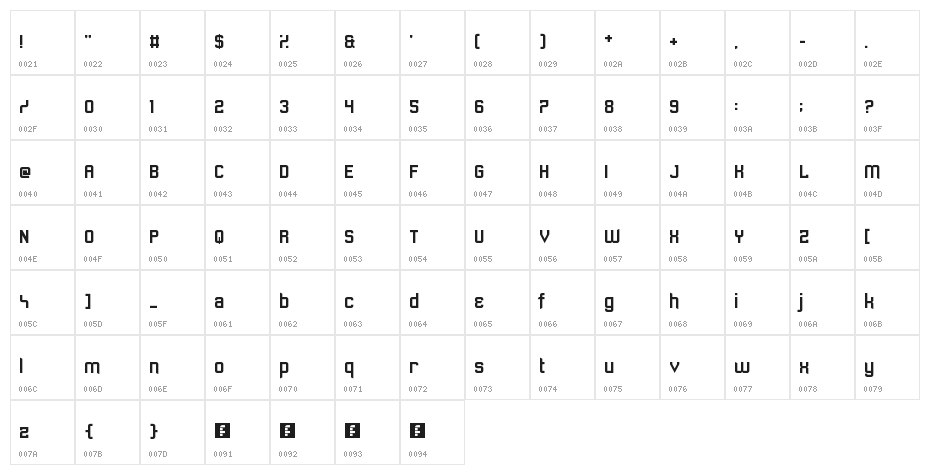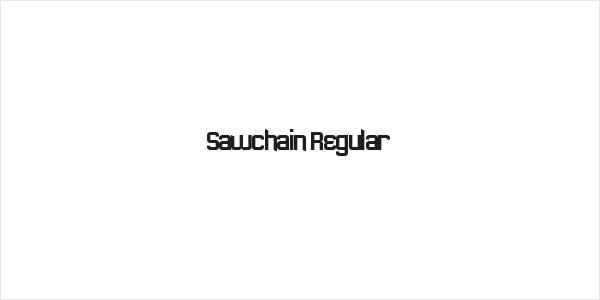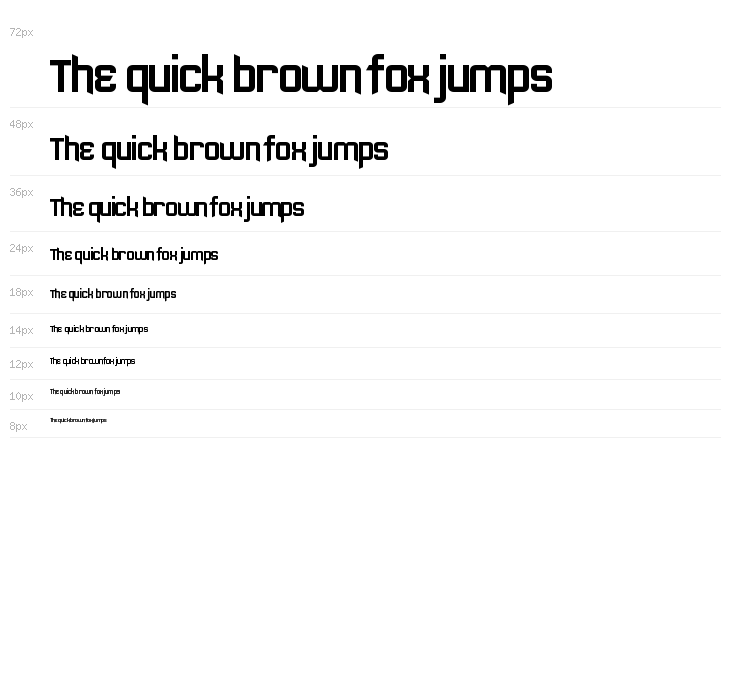
Sawchain Regular Font
Sawchain Regular Description
This font features a bold, geometric design with a modern and industrial feel. The characters are constructed with sharp angles and straight lines, giving it a mechanical and robust appearance. The uppercase and lowercase letters maintain a consistent style, with a uniform height and width that enhances readability. The numerals and special characters are designed to match the overall aesthetic, providing a cohesive look across all elements. The font's unique style makes it stand out, while still being legible and versatile for various applications.
| Proposed Projects | Ideal for branding, posters, and signage where a strong, modern look is desired. |